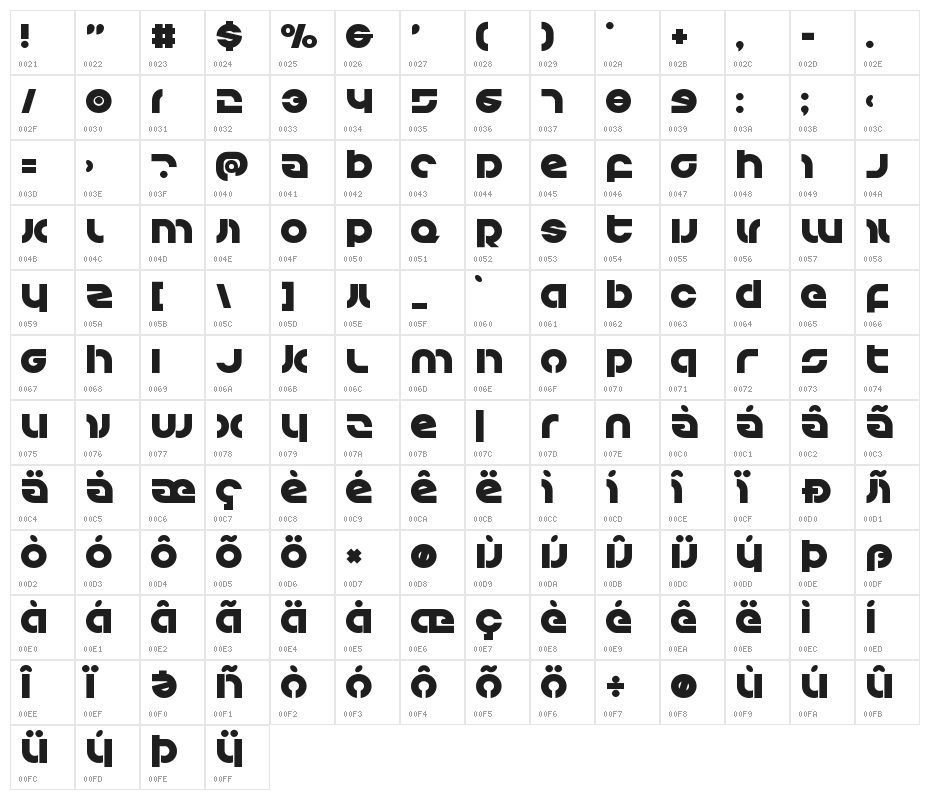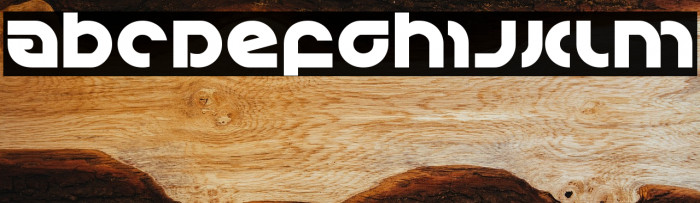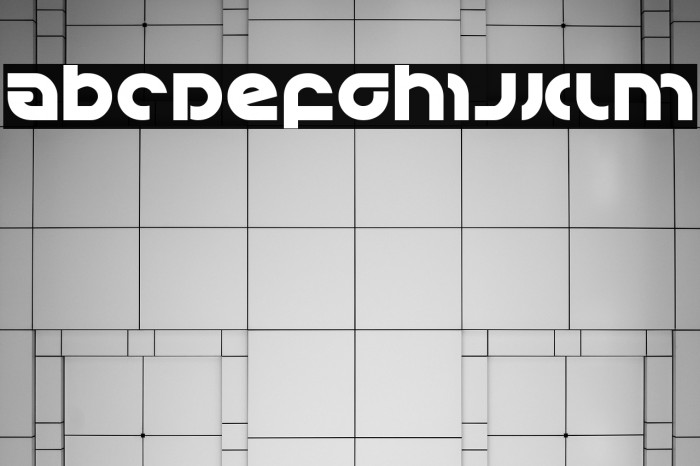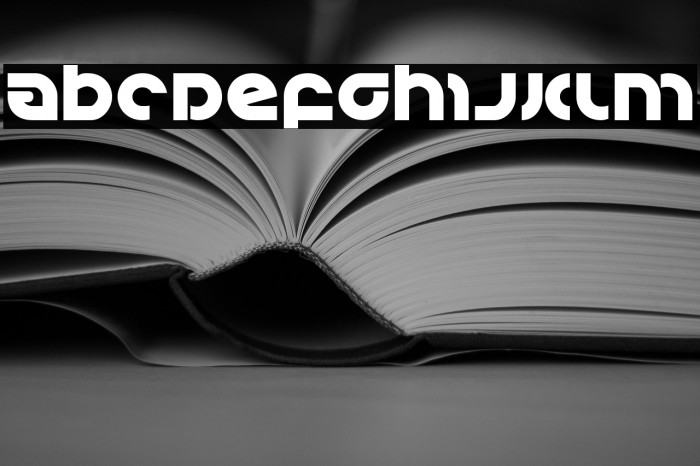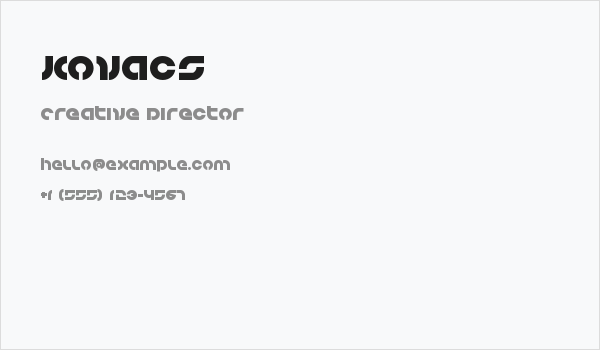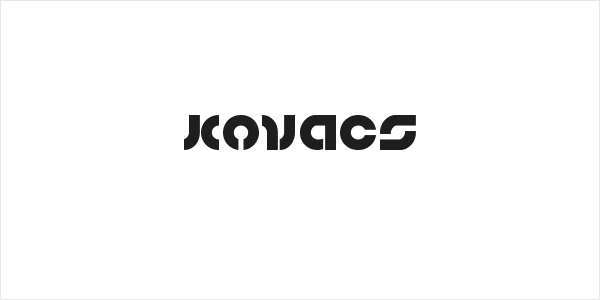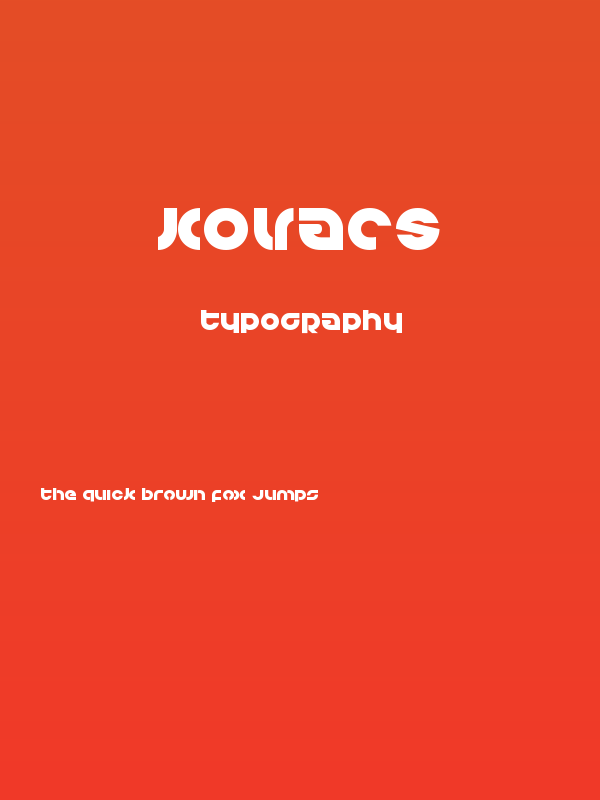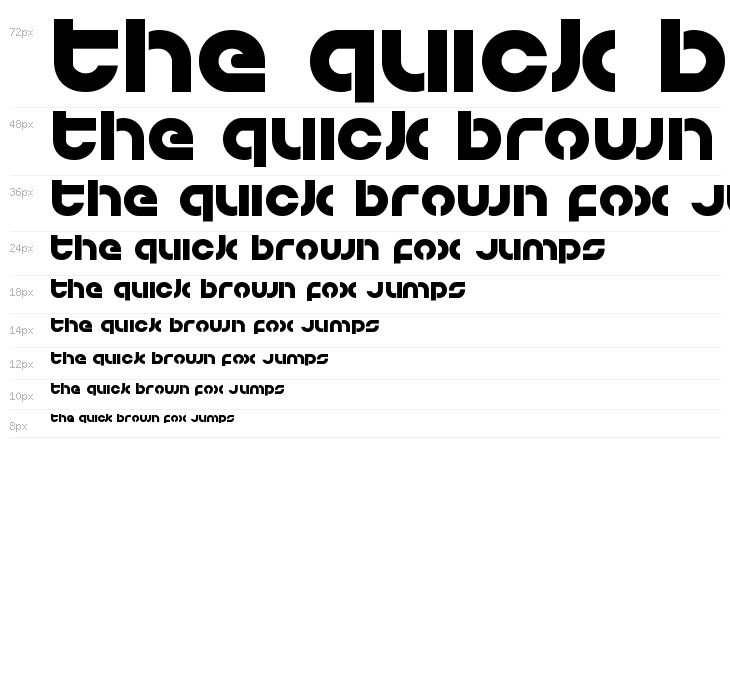
Kovacs Font
Kovacs Description
This font features a bold and geometric design with a futuristic flair. The characters are constructed with thick, uniform strokes and exhibit a strong, cohesive structure. The use of sharp angles and curves creates a dynamic and modern appearance. The uppercase and lowercase letters maintain a consistent style, with unique shapes that enhance readability while adding a distinct visual interest. The numerals and special characters follow the same design principles, ensuring a harmonious look across all text elements. This font's boldness and unique style make it ideal for attention-grabbing designs.
| Proposed Projects | Ideal for branding, posters, headlines, and any design requiring a modern and bold statement. |